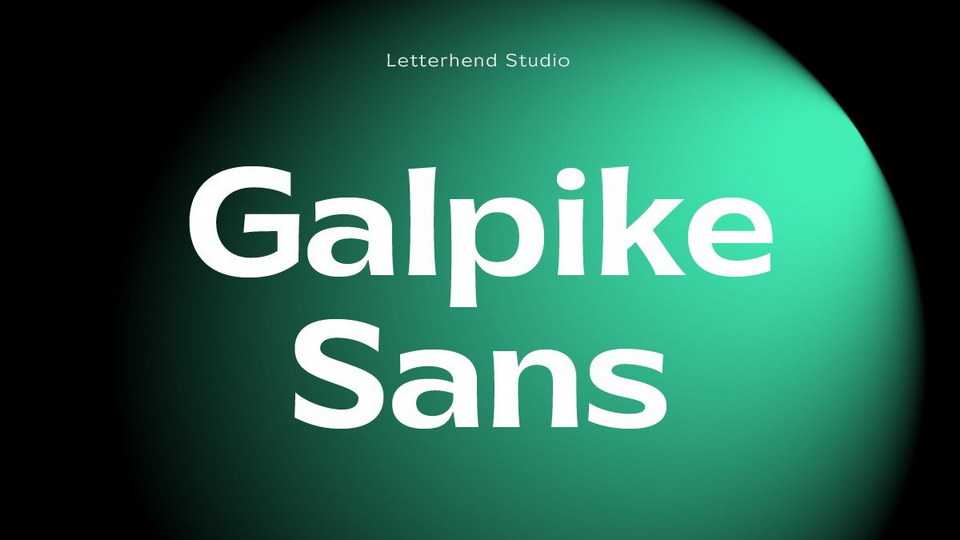
Download Galpike Sans font, a neat and clean sans serif typeface. Galpike Sans is perfect anywhere you need a right impression for branding, publishing, titles, book, magazine , and use on UI/UX design.